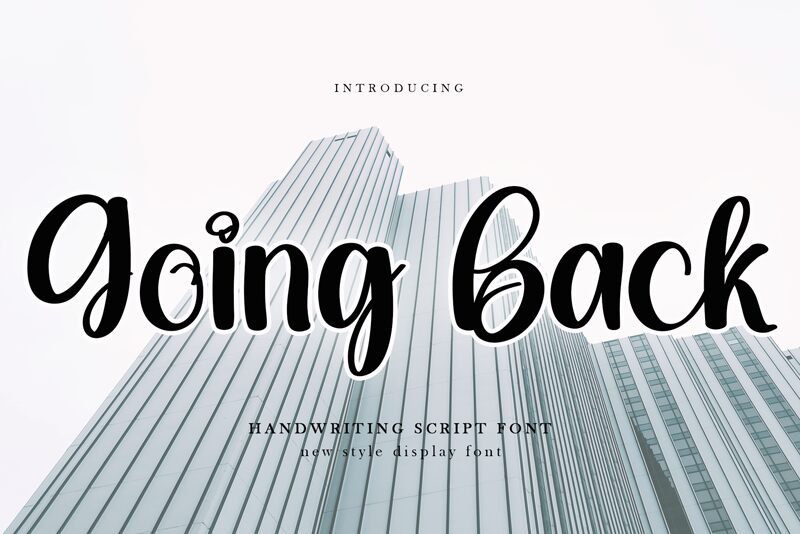
Going Back is a free script typeface designed by creatype designer that captures a contemporary and expressive aesthetic. The flowing and elegant characters are inspired by handwriting, giving the font an approachable and modern vibe. Perfectly suited for those looking to add a personal touch, the font marries style with functionality, offering a balance of elegance and creativity.
Ideal for casual branding projects, Going Back is also great for invitations, greeting cards, and creative endeavors. Use it for logo designs, advertisements, packaging, product labels, headlines, social media posts, business cards, or personal websites. The font is versatile enough to complement various themes and ideas, enhancing the visual appeal of any project.
This font showcases a classy calligraphic influence while maintaining a contemporary and fresh appeal. Its versatility makes it perfect for a variety of creative applications, including letterheads, titles, and stationery.